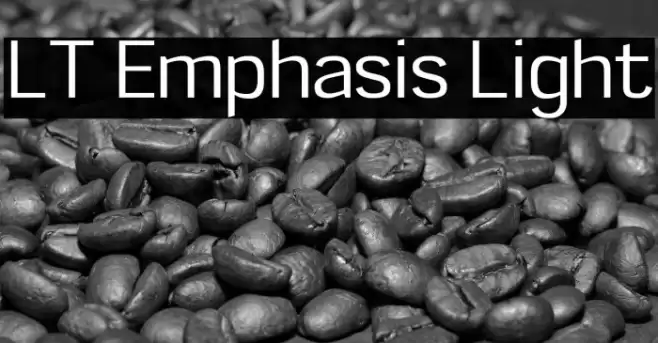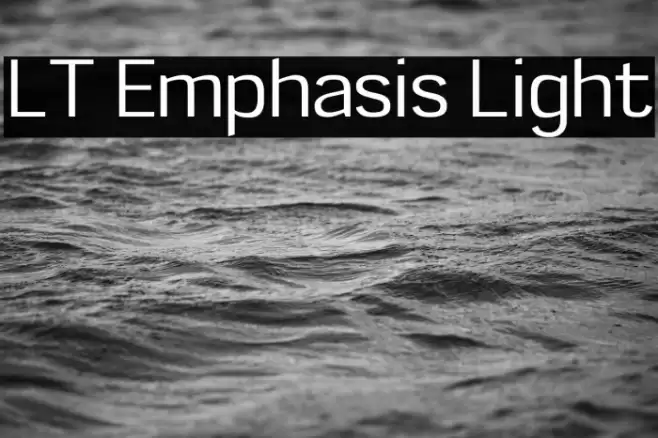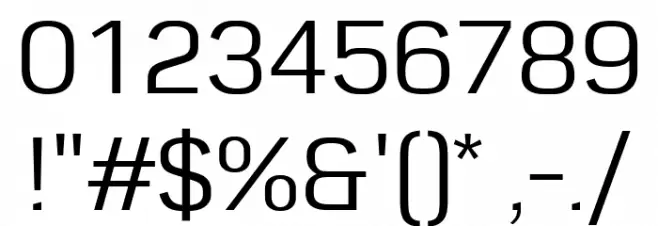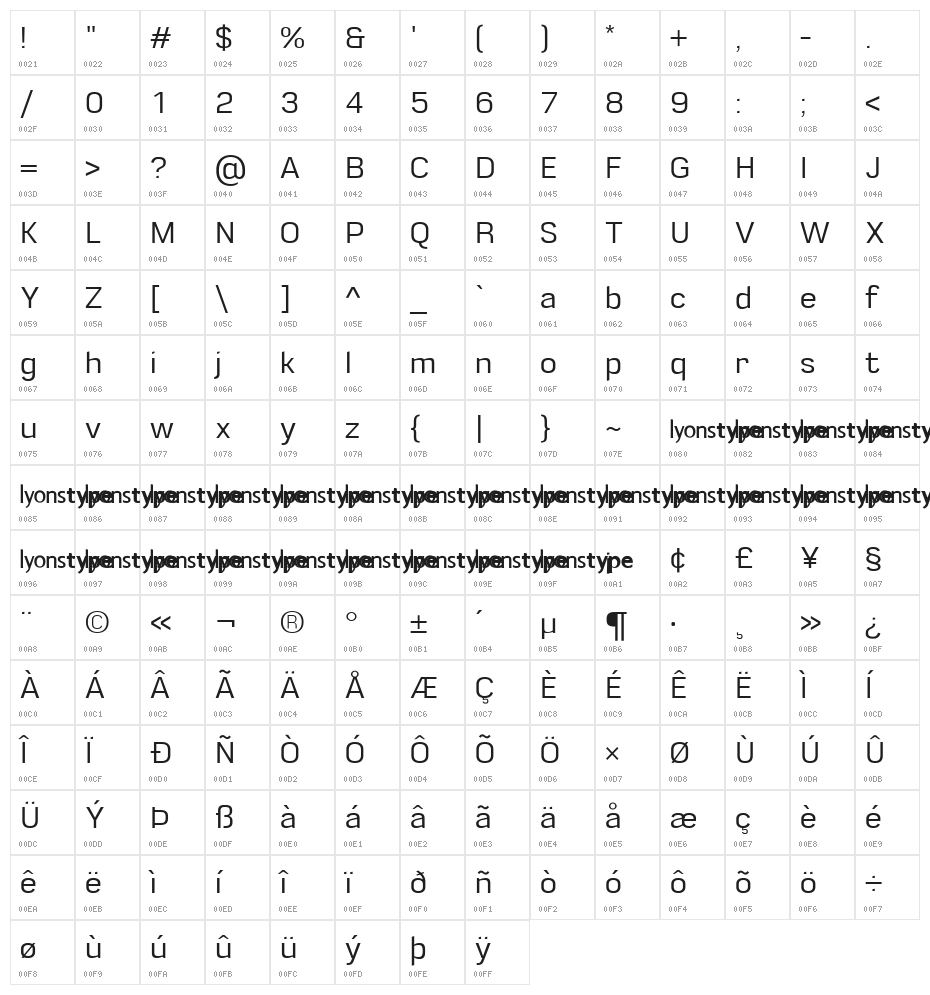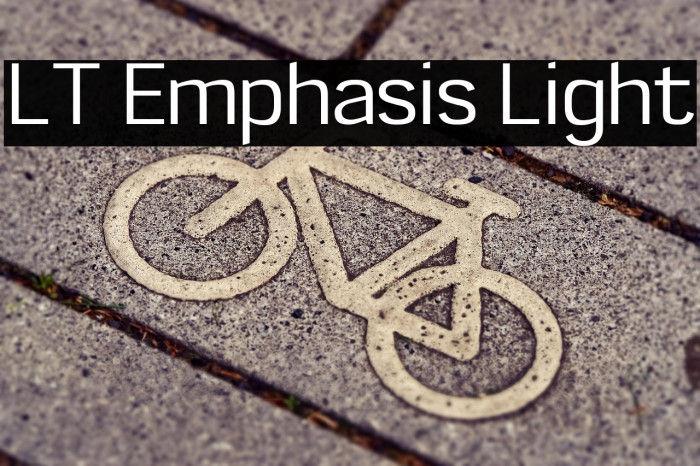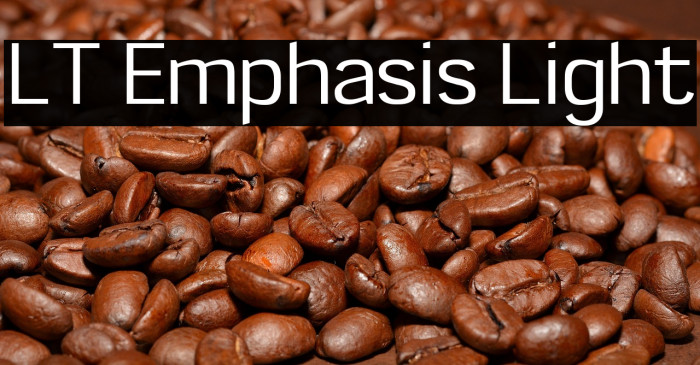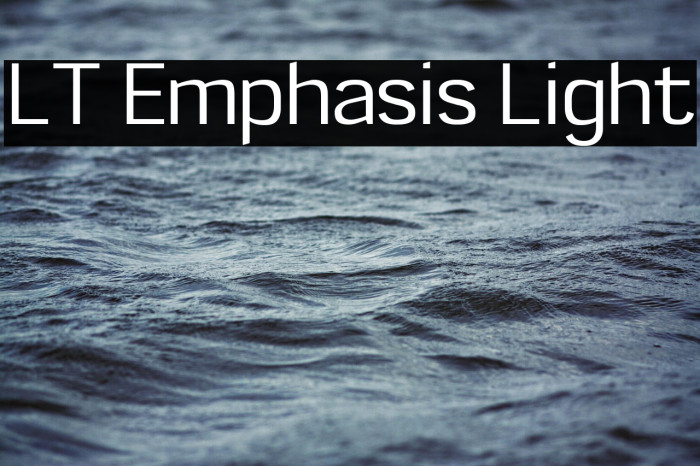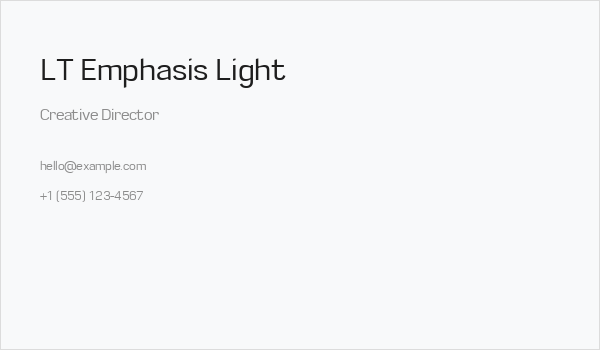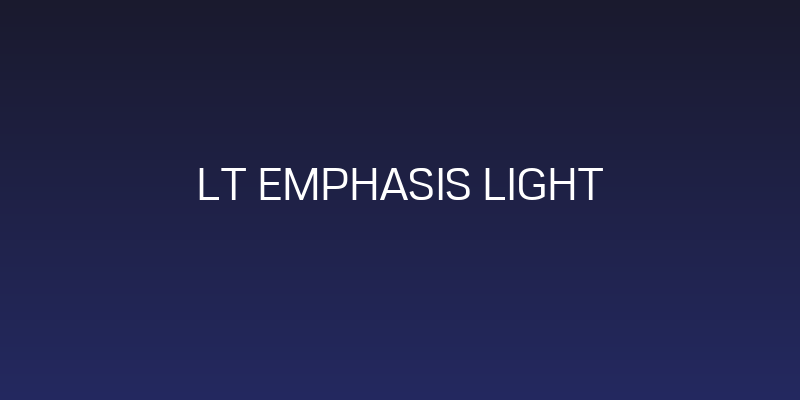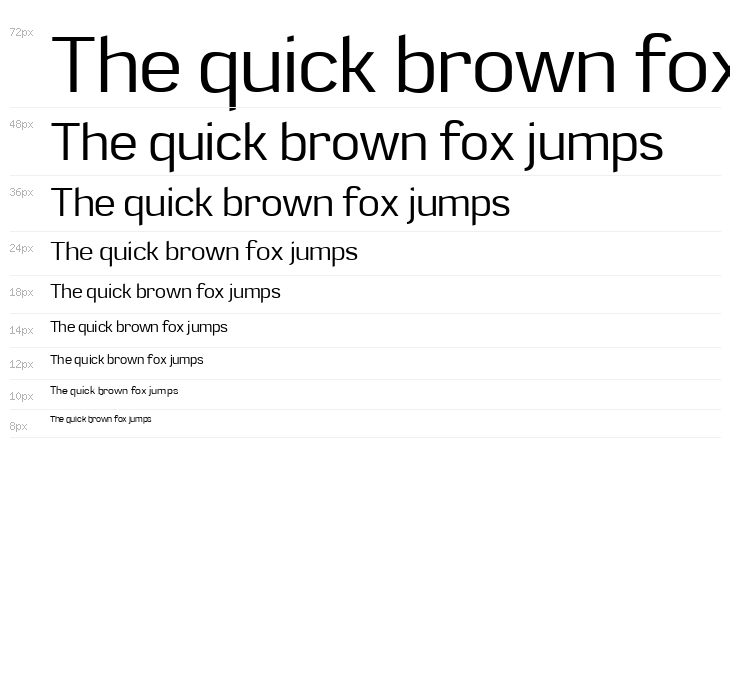
LT Emphasis Light Font
LT Emphasis Light Description
This typeface is a sleek and modern sans-serif font characterized by its clean lines and minimalistic design. The letters are evenly spaced with a consistent stroke width, giving it a uniform appearance. The uppercase and lowercase letters are well-proportioned, making it highly legible. The numerals are straightforward and align perfectly with the overall style of the font. Special characters are included and maintain the same aesthetic, ensuring versatility in various applications. Its simplicity and clarity make it suitable for both digital and print media.
A modern, clean sans-serif font with consistent stroke width and high legibility from Uncategorized fonts.
- Font: LT Emphasis Light
- Weight: Light
- Proposed Projects: Ideal for corporate branding, web design, editorial layouts, and user interfaces.